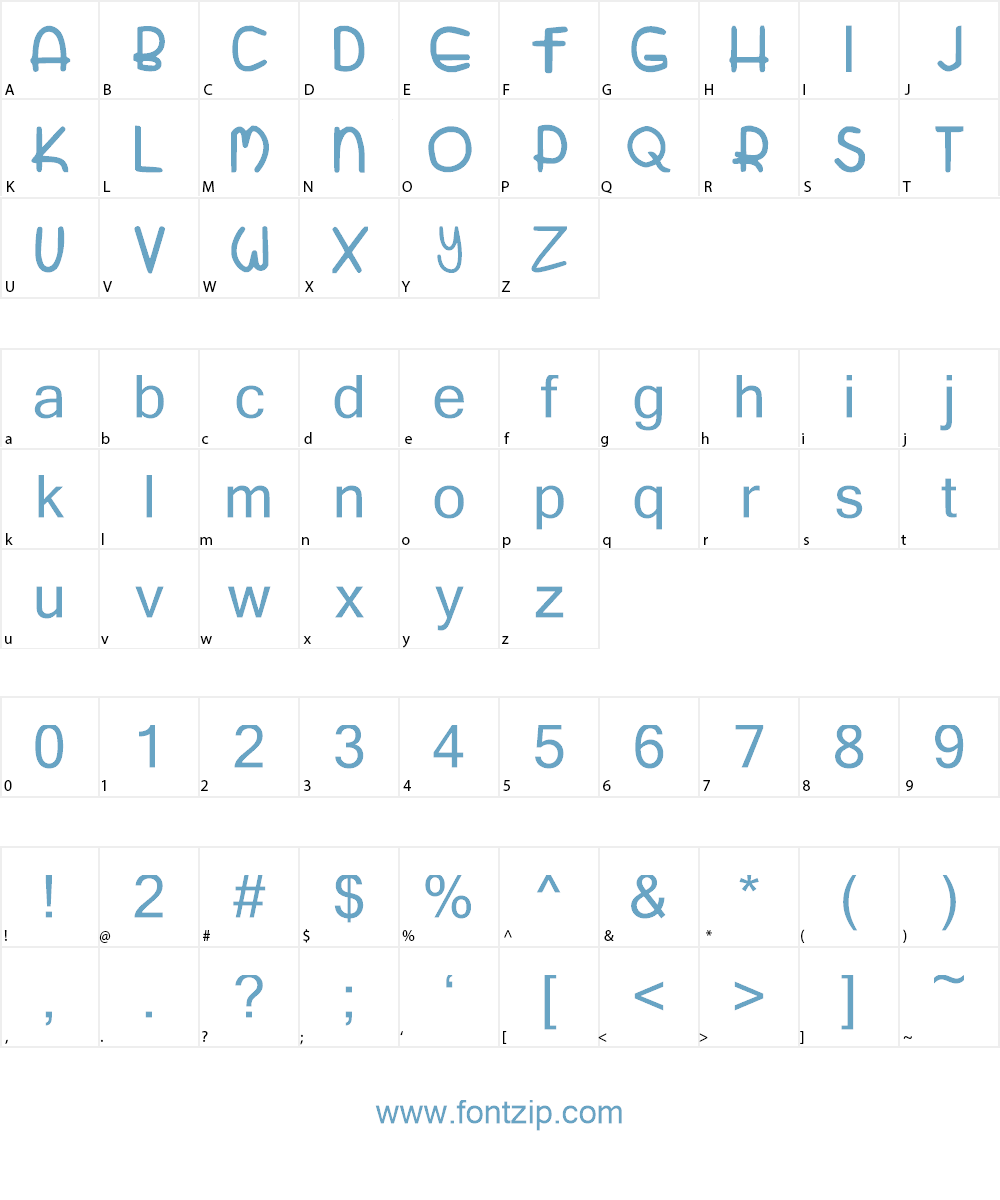
this font i created based on the movies title that cute and cool
and this font is great for headline or tittle cover. yhis font just has uppercase letter that great to use for your design title,